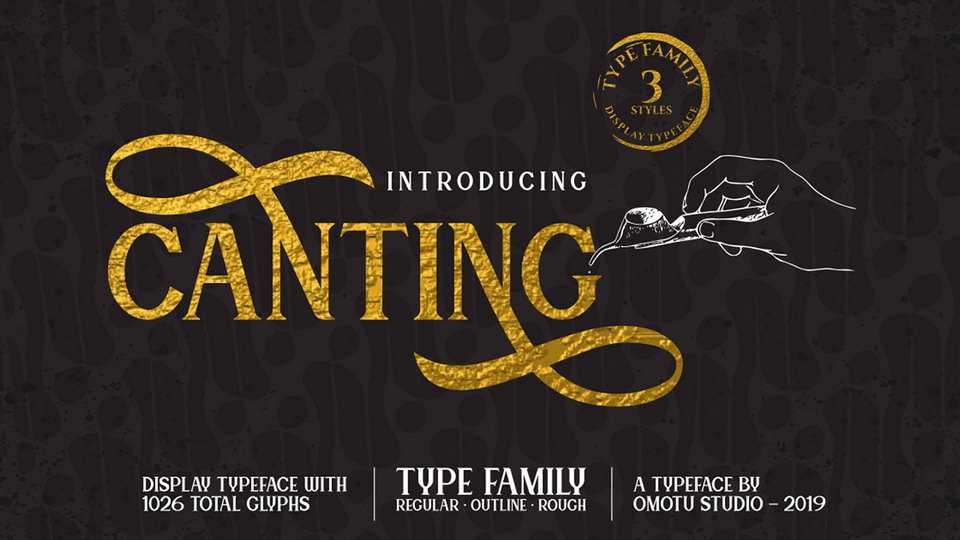
Download Canting font, a fancy decorative serif typeface. Canting perfectly represents vintage aesthetics in a modern and minimalist way. The font includes special uppercase letters and alternate characters.
Designer: Ibnu Utomo